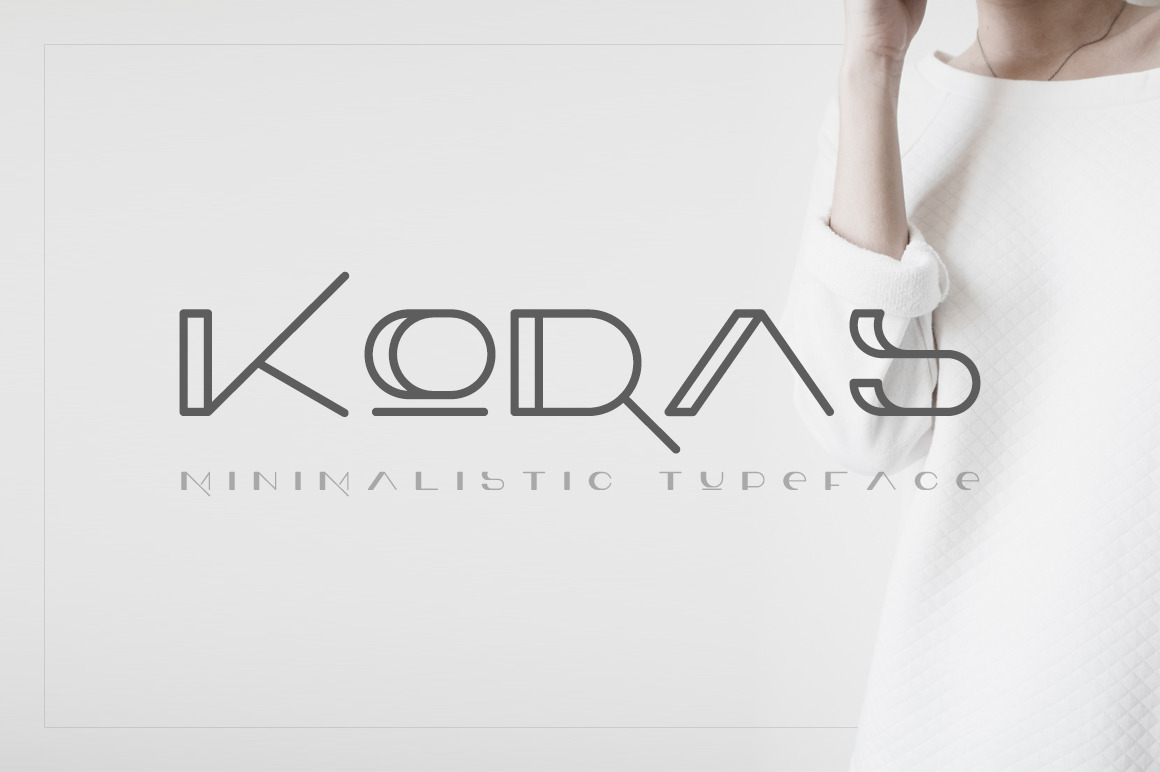
Koras Font
Koras Font is a unique minimalistic typeface.
Made for giving minimalistic titles. Koras packs a set of capitals, numbers and punctuation. Font for design greeting, prints, web design, invitation, business cards.
- Koras Regular and Koras Line